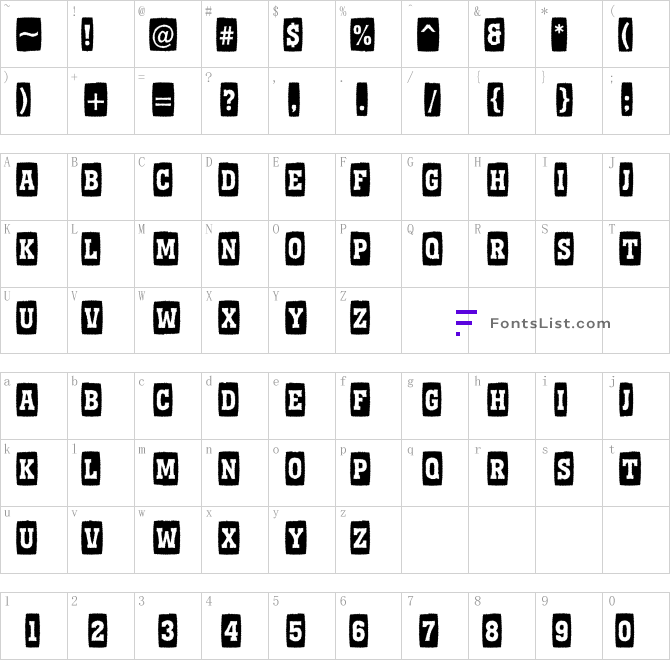
- Font Name:a_KenaCmRgh
a_KenaCmRgh-Medium.ttf is a very beautiful artistic font, a_KenaCmRgh-Medium.ttf is widely used in the design and printing of various books and pictures,a_KenaCmRgh-Medium.ttf has a strong visual impact,a_KenaCmRgh-Medium.ttf is a commonly used font in newspapers, magazines and books, and is used in posters, e-commerce Poster design, store design, logo design, font design and other fields.a_KenaCmRgh-Medium.